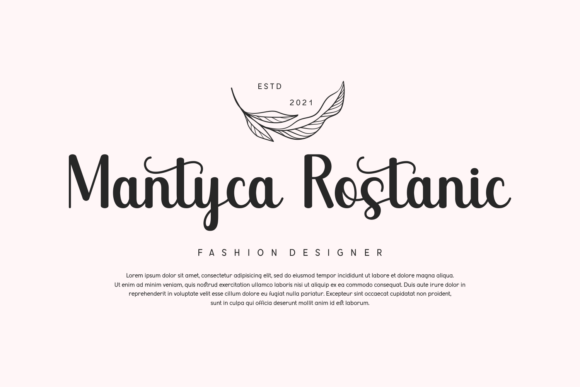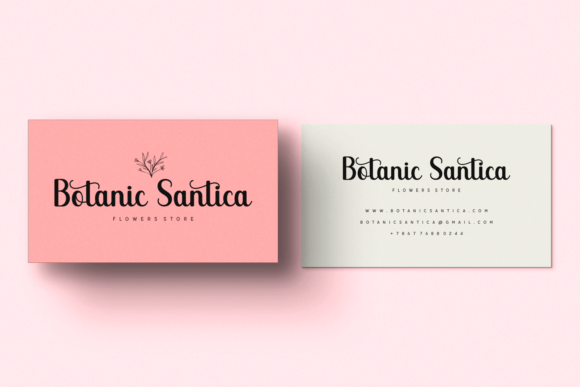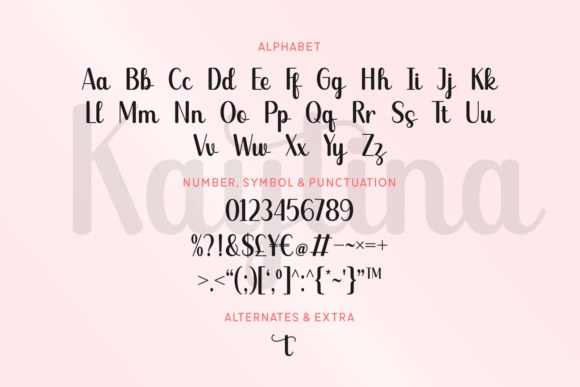
Introduction to Kaytina Font
Have you ever stared at a blank page, waiting for inspiration to strike? You’re not alone. Designers often find themselves in this exact situation, searching for the perfect font to bring their creative project to life. And then, it happens – you stumble upon a font that not only captures your attention but also sets your design apart from the rest. For many designers, that font is the Kaytina Font.
With its unique, handwritten touch, the Kaytina Font is a game-changer for designers seeking a high-quality font for their logos, branding, and quotes. This versatile font offers a level of sophistication and elegance that’s hard to find elsewhere, making it an invaluable design resource for anyone looking to elevate their creative work.
Key Features of Kaytina Font
- High-quality, professional design ideal for creative projects and design resources.
- Includes a range of characters and glyphs, including uppercase and lowercase letters, numbers, and special characters.
- Designed with a modern and elegant aesthetic, making it perfect for use in logos, branding, and other creative applications.
Honest Review: Kaytina Font
I recently had the opportunity to work with the Kaytina Font, and I must say it’s been a game-changer for my creative projects. This free download has been a fantastic design resource, offering a high-quality, elegant script font that’s perfect for adding a touch of sophistication to any project.
One of the things that stands out about the Kaytina Font is its versatility. It works well in a variety of contexts, from invitations to social media graphics, and its transparent background makes it easy to layer with other design elements.
Here are some of the things that work well with the Kaytina Font:
- High-quality design with a beautiful, elegant script style
- No bold or italic variations available
- May not be suitable for very large or small text sizes
Overall, I’m thoroughly impressed with the Kaytina Font. It’s a fantastic design resource that’s perfect for anyone looking to add a touch of elegance to their creative projects.
The Kaytina Font is a high-quality, free design resource that can elevate your creative project to the next level. This versatile font is perfect for designers looking for a unique and eye-catching element to add to their designs.
Common Use Cases for Kaytina Font
Kaytina Font is perfect for:
- Designing logos and branding materials.
- Creating social media graphics and posts.
- Designing presentations and reports.